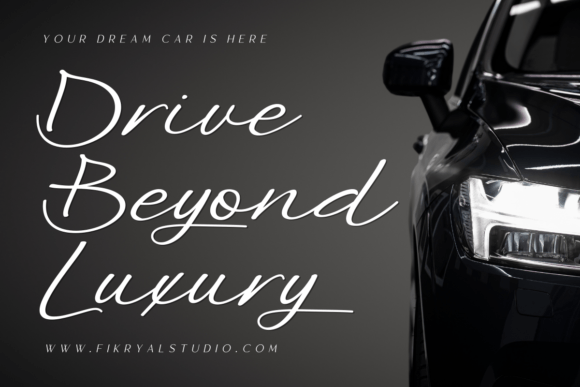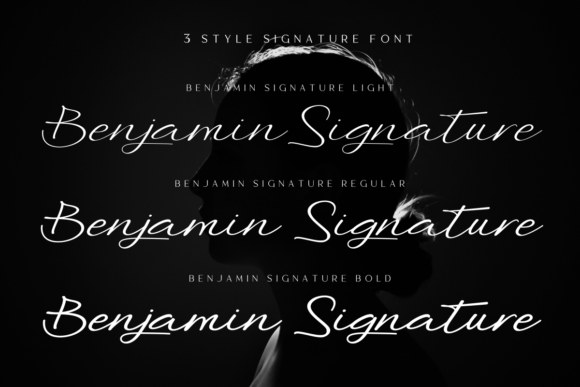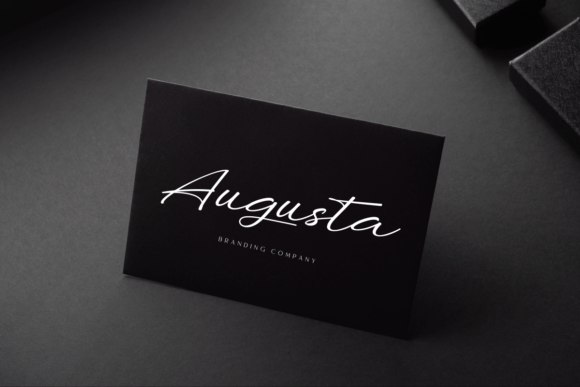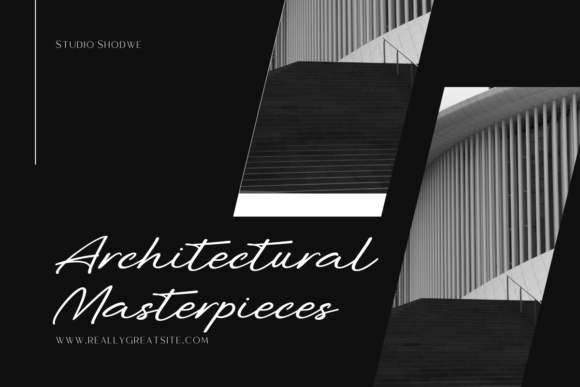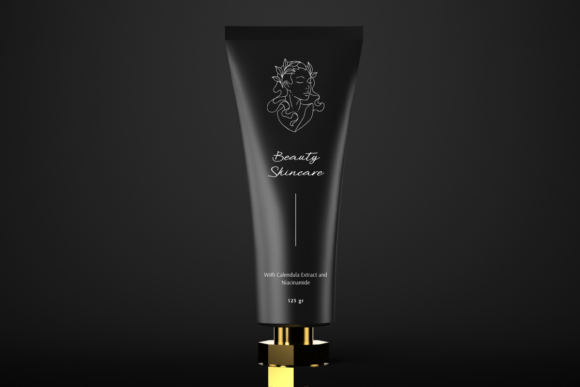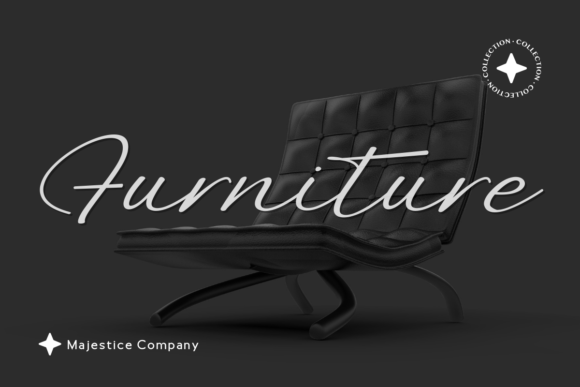
The Elusive Perfect Font: My Journey with Benjamin Signature
I still remember the design project that led me to Benjamin Signature. I was working on a wedding invitation suite, and my client was adamant about finding a font that exuded elegance and sophistication. I spent hours scouring through font libraries, but nothing seemed quite right. That was until I stumbled upon Benjamin Signature – a refined and stylish typeface that captured the essence of a handwritten signature.
A Refined and Versatile Typeface
Benjamin Signature offers three distinct styles: Light, Regular, and Bold. This versatility makes it suitable for a wide range of design projects, from sophisticated branding to graceful wedding invitations and upscale product packaging. The Light style provides a delicate and airy feel, the Regular strikes a perfect balance for everyday use, and the Bold delivers a strong, impactful presence.
- ✨ Elegant and refined design that adds a touch of personal charm to any project
- ✅ Highly versatile with three distinct styles to suit various design needs
- 💫 Supports OpenType features, allowing for advanced typographic control
- 🎨 A wide range of glyphs and stylistic alternates for creative freedom
While Benjamin Signature is an excellent font, there are a few minor considerations to keep in mind:
- ⚠️ The Light style may be too delicate for some projects, requiring careful consideration of font size and color.
- 🤔 Some users may find the font’s elegance too refined for casual or playful designs.
Exploring Alternatives and Similar Fonts
If you’re looking for similar fonts or alternatives to Benjamin Signature, consider the following options:
- Lobster: A elegant and refined script font perfect for formal designs, such as wedding invitations and luxury branding.
- Pacifico: A beautiful, modern script font ideal for creative and artistic projects, such as posters and social media graphics.
- Great Vibes: A stylish and elegant script font suitable for a range of designs, from formal events to digital marketing materials.
- Alex Brush: A whimsical and artistic script font perfect for creative and playful designs, such as illustrations and greeting cards.
The Story Behind Benjamin Signature
Benjamin Signature was designed with the intention of capturing the essence of a handwritten signature. The designer’s inspiration came from the elegant and refined world of calligraphy, where every stroke and curve is a testament to the art of beautiful writing. With Benjamin Signature, the goal was to create a font that would bring a touch of personal charm and sophistication to any design project.
Q: What is the difference between the Light, Regular, and Bold styles?
A: The Light style provides a delicate and airy feel, the Regular strikes a perfect balance for everyday use, and the Bold delivers a strong, impactful presence.
Q: Does Benjamin Signature support OpenType features?
A: Yes, Benjamin Signature supports OpenType features, allowing for advanced typographic control and creative freedom.